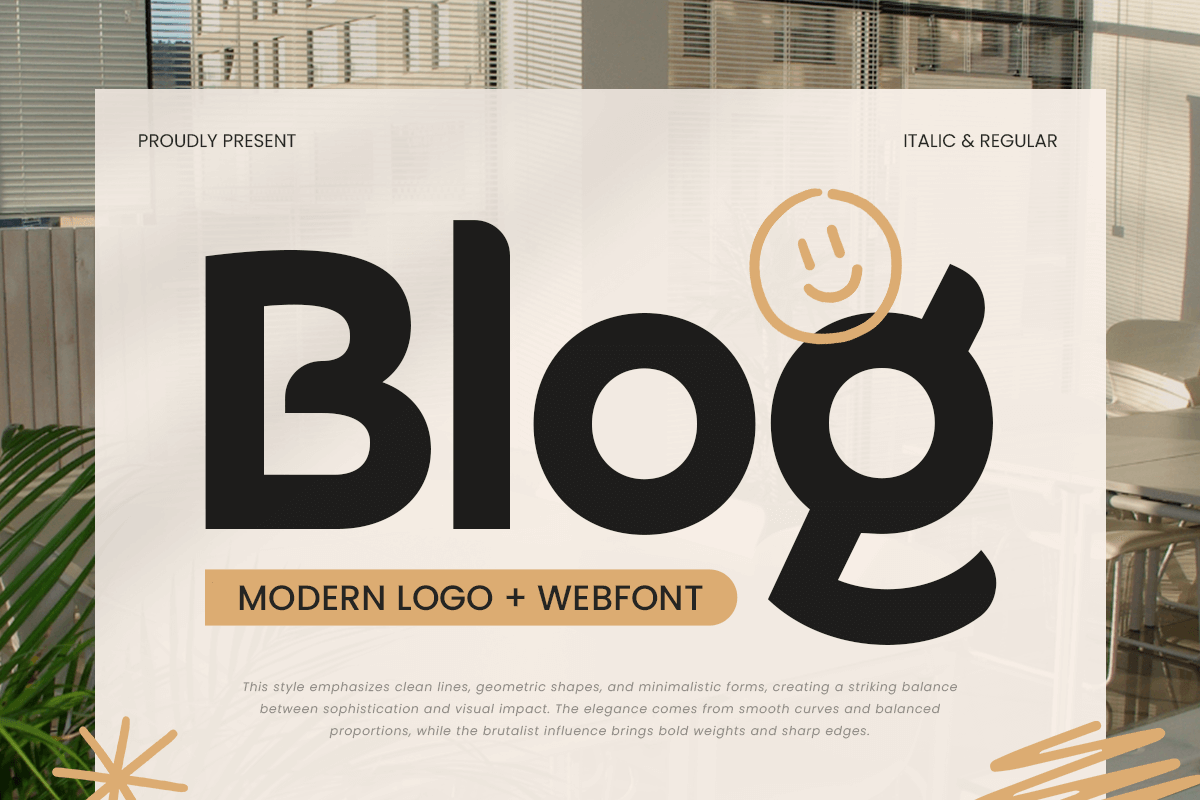
Blog
-Modern Logo Web FontBlog - Modern Logo Web Font
Blog is a modern logo web font crafted for clean and professional digital branding. With its sleek, minimal, and highly legible design, this font is perfect for website headers, startup logos, corporate identities, UI/UX design, and social media graphics.
Designed for versatility and clarity, Blog font offers a smooth and contemporary aesthetic that works well across web platforms, mobile applications, and digital advertisements. Its balanced proportions and refined letterforms ensure excellent readability, making it an ideal choice for tech brands, lifestyle blogs, and modern businesses looking to create a polished and engaging online presence.
Enhance your digital branding with Blog font, a font that combines modernity, simplicity, and elegance for high-impact web typography.
Blog - Modern Logo Web Font Features:
Clean, minimal, and modern letterforms
Ready with Regular and Italic Version
Ideal for web design, branding, and digital interfaces
Punctuation, numbers, and symbols included
Uppercase and lowercase letters
OpenType features for flexible customization